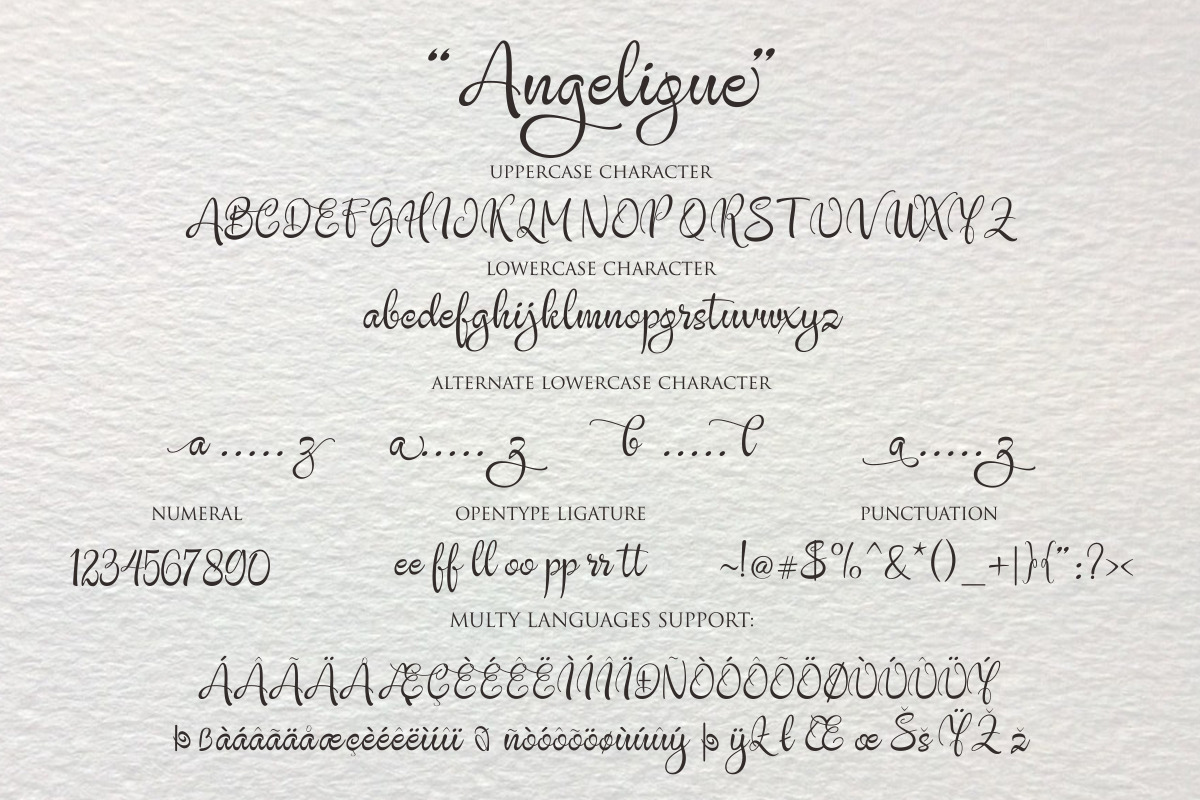
Angelique
Angelique Font is a interconnected font with beautiful welded letters.
The font contains beautiful smooth and elegant letters and is great for creating cards such as wedding invitations and birthday cards but also can be used to create beautiful signs and decorate various items.
The font has a modern calligraphy style and features beautiful swashes. It is easy to read and fun to work with. There is no doubt that you will get professional results with this font and you will be able to amaze your customers.The Angelique Font has given PUA unicode (specially coded fonts), with tons of alternate characters. The pack can be accessed in full by any crafter or designer, without the requirement for extra design software, COMPATIBLE WITH SILHOUETTE & CRICUT DESIGN SPACE
Language Support : Albanian, Basque, Breton, Chamorro, Danish, Dutch, English, Faroese, Finnish, French, Frisian, Galician, German, Icelandic, Italian, Malagasy, Norwegian, Portuguese, Swedish
The Features of this fonts is: Contextual Alternates, Standart ligatures, Stylistic Alternates, Stylistic Sets,